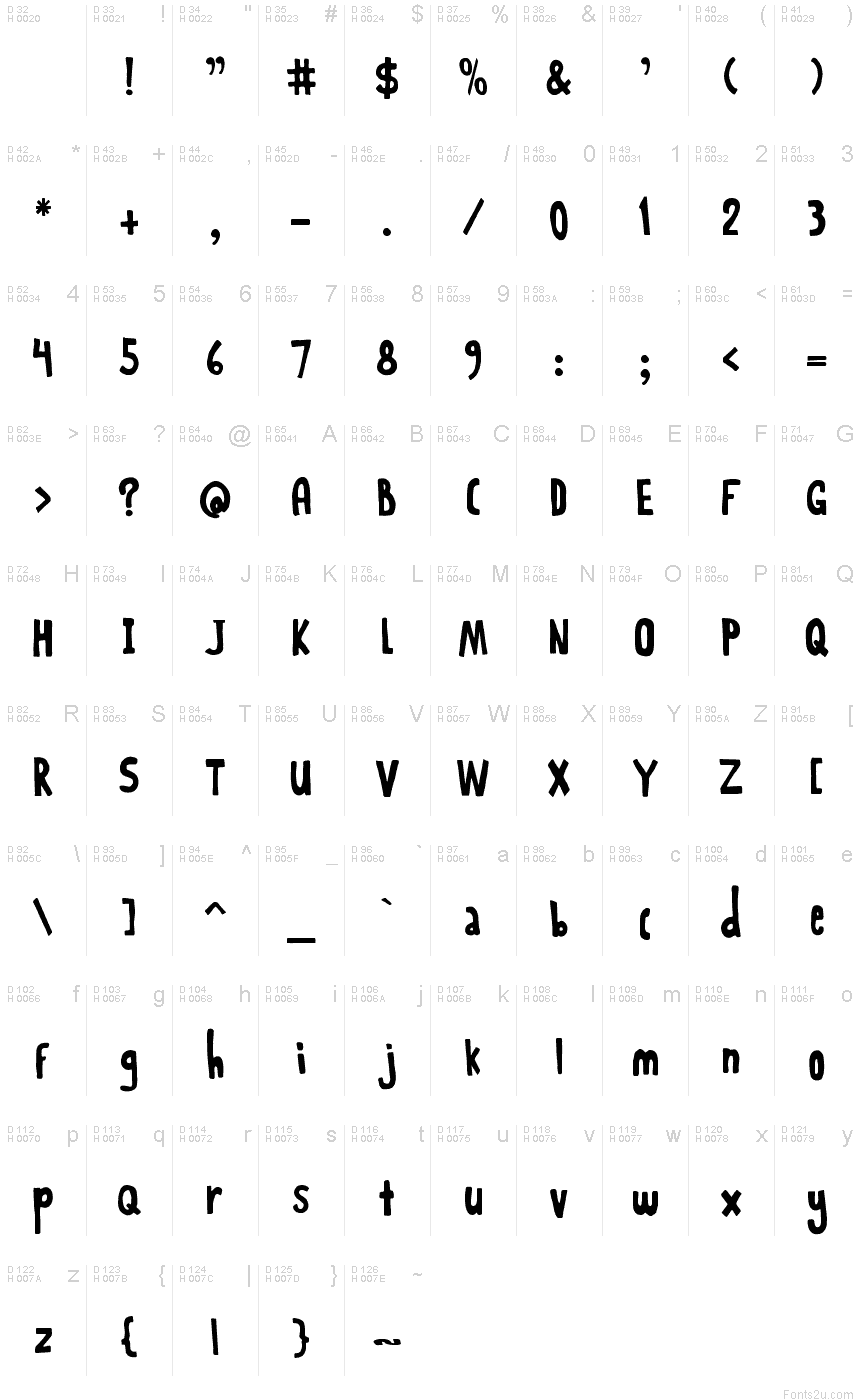
Rabbit on the Moon by David Kerkhoff is a free cartoon display font with tall, irregular letters and a lively cut-paper silhouette. Rounded ends, pinched joins, and changing stroke widths give the substantial shapes a playful, slightly lopsided pull.
Children and families are the natural audience for its friendly oddness. It suits picture-book covers, snack packaging, party posters, and game graphics, where the wobbly lettering can echo simple character illustration and give a brand or product line a recognizable mascot-like identity.